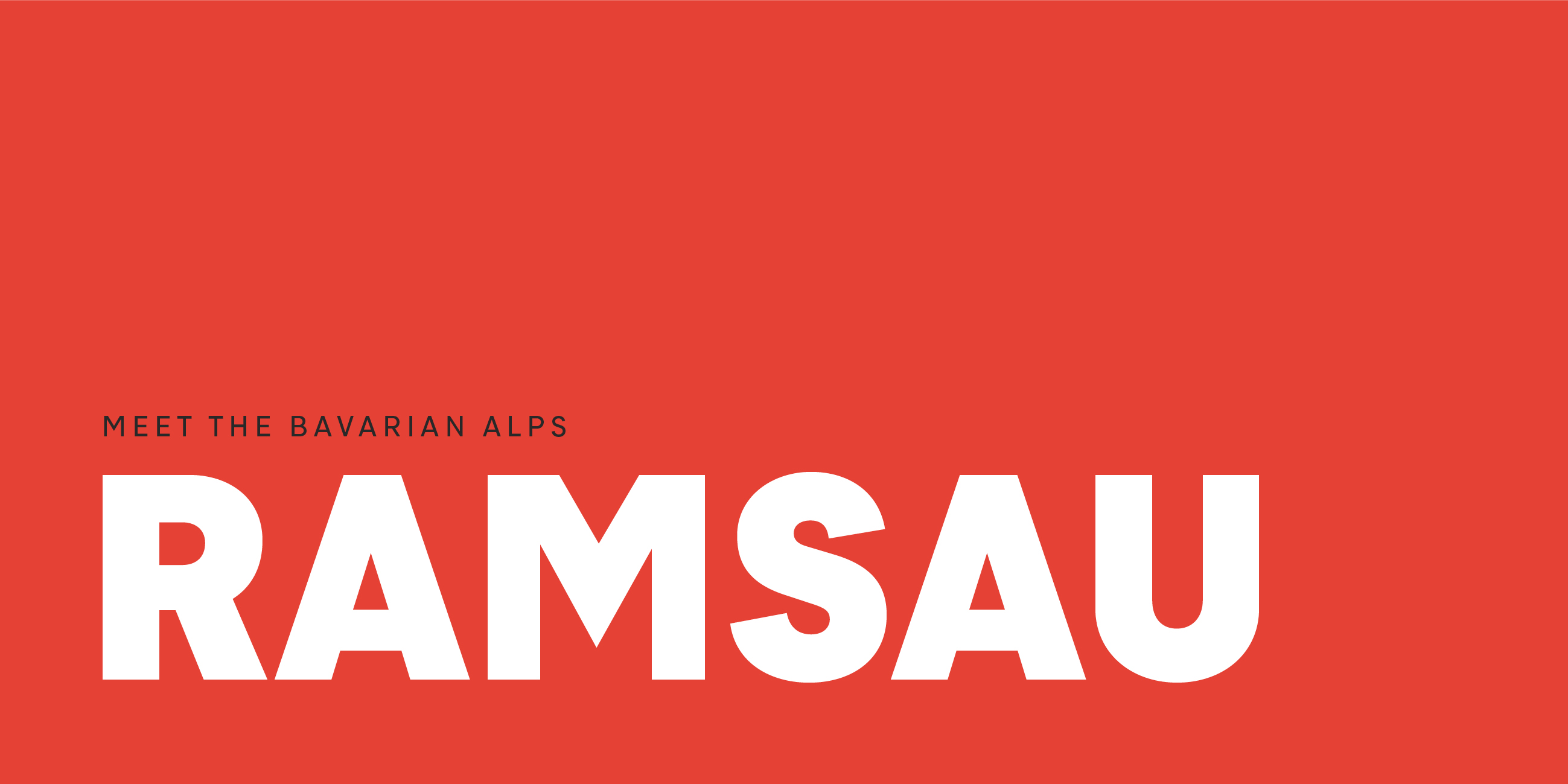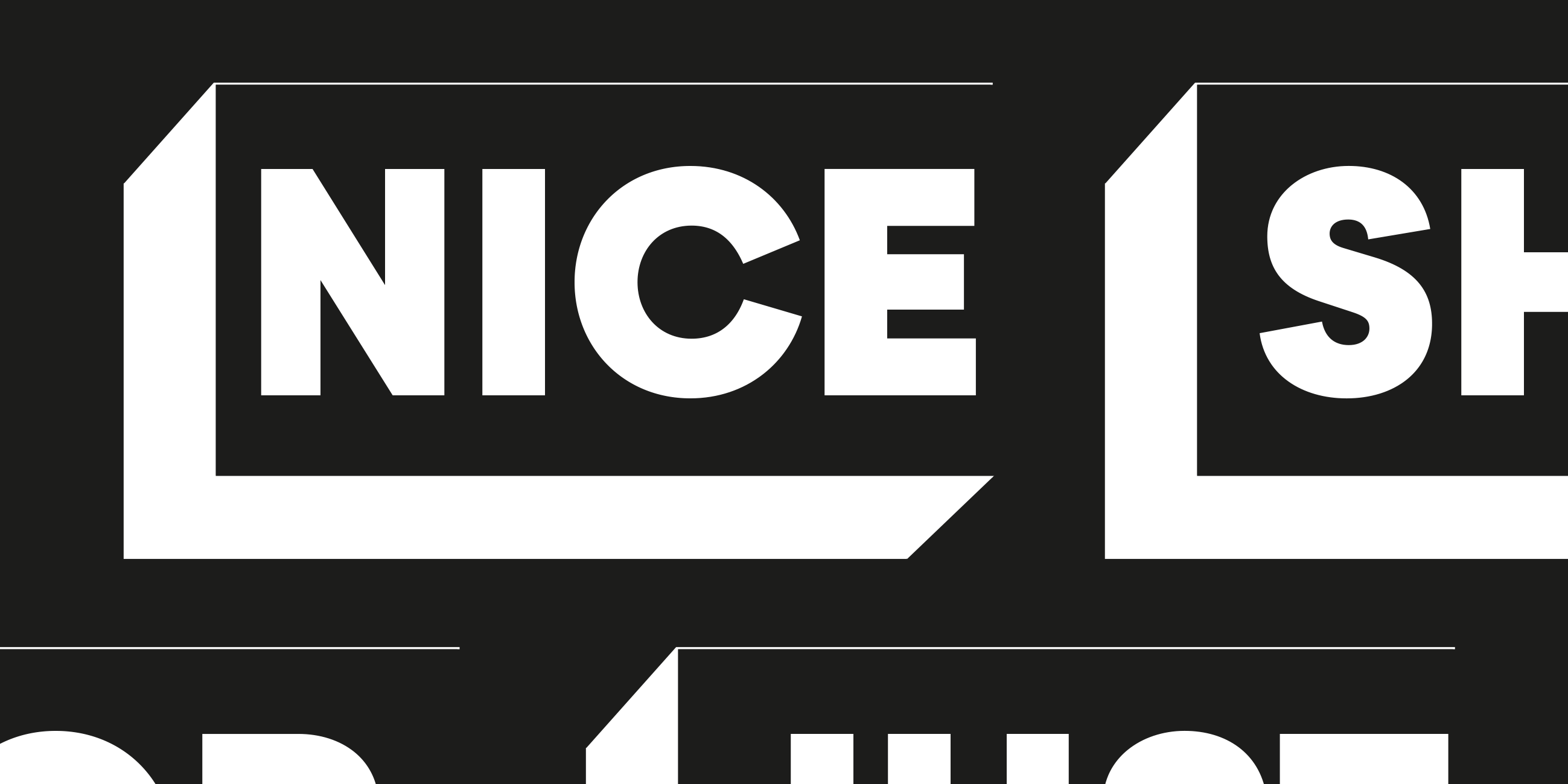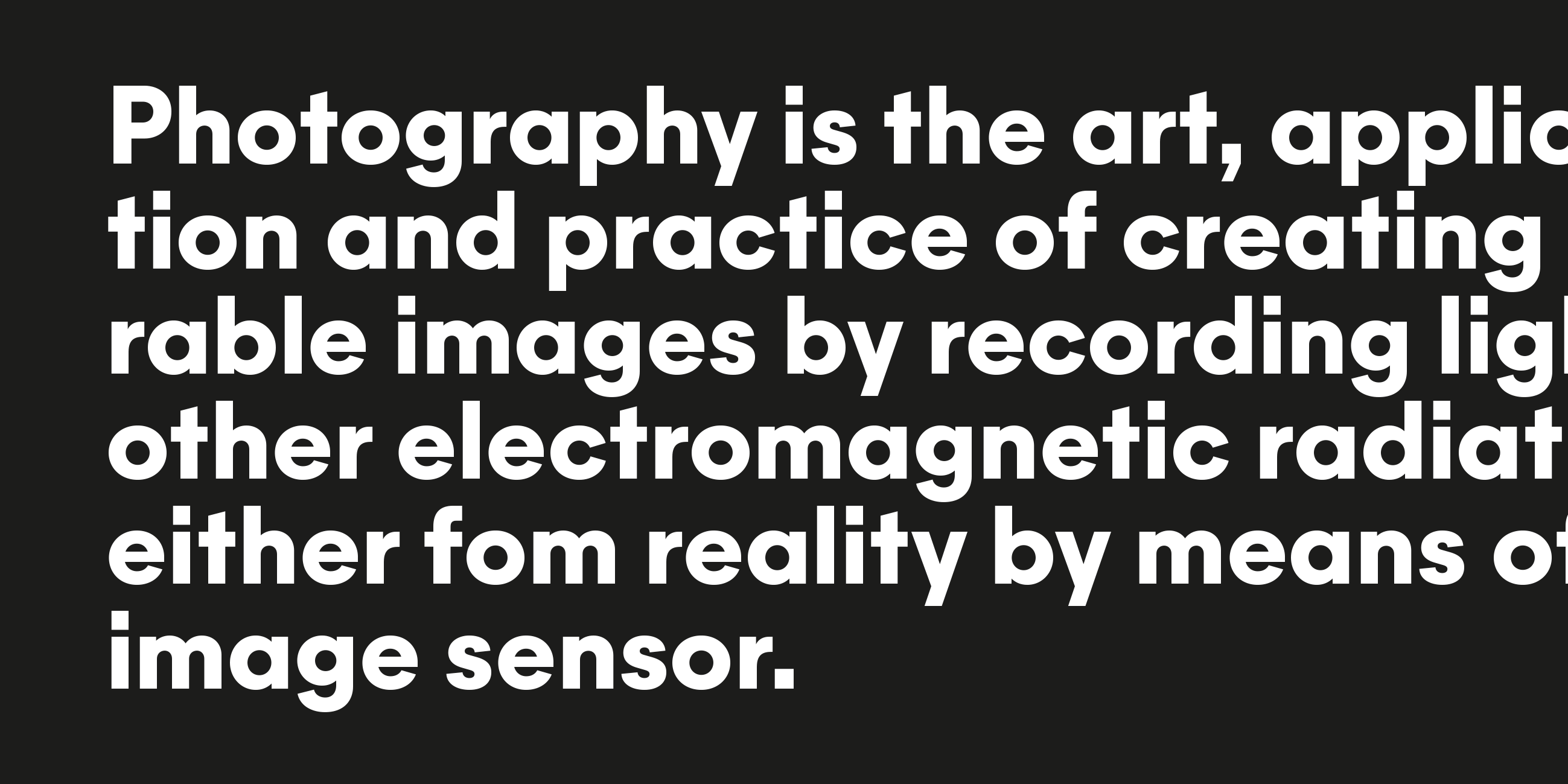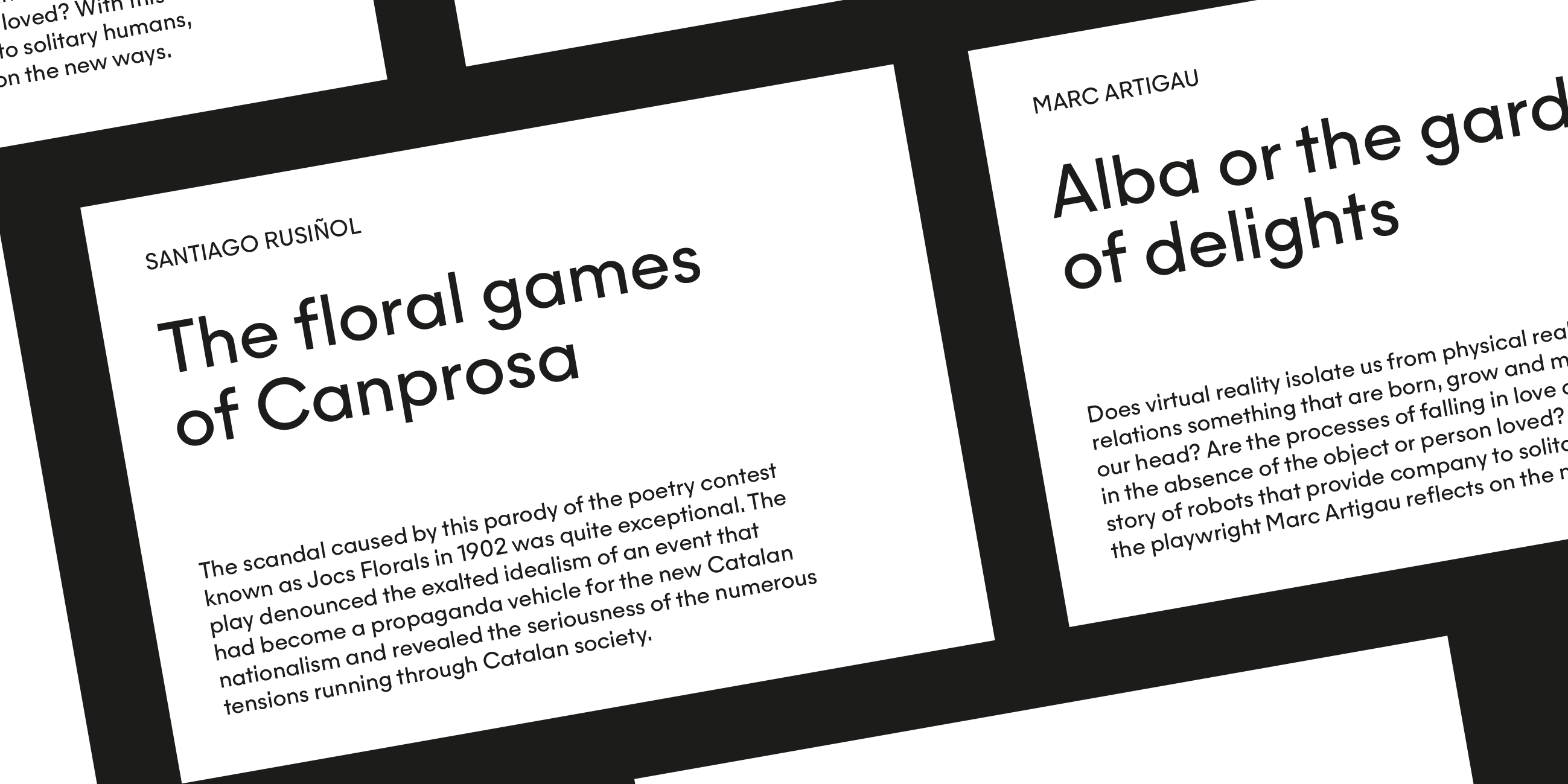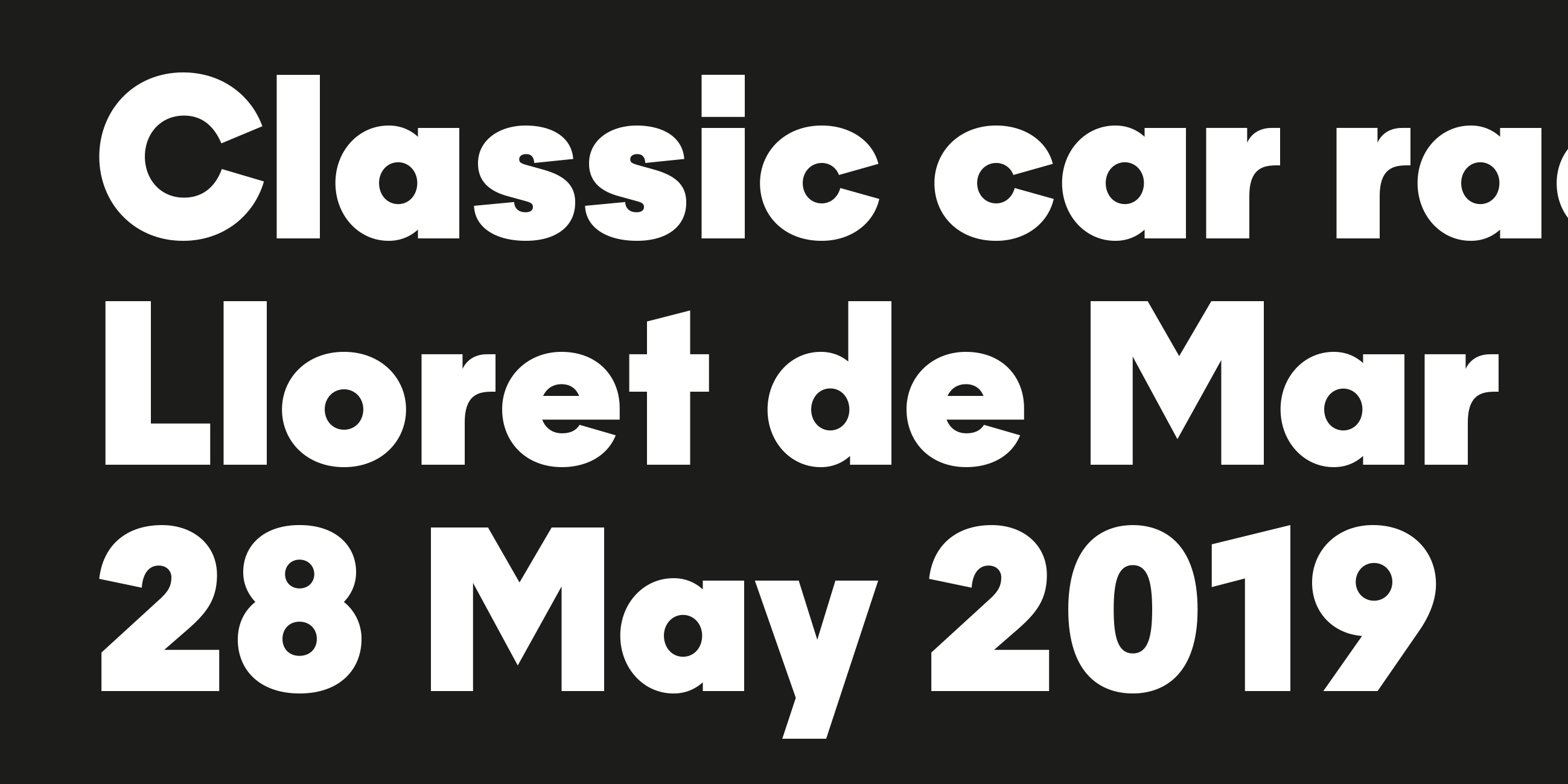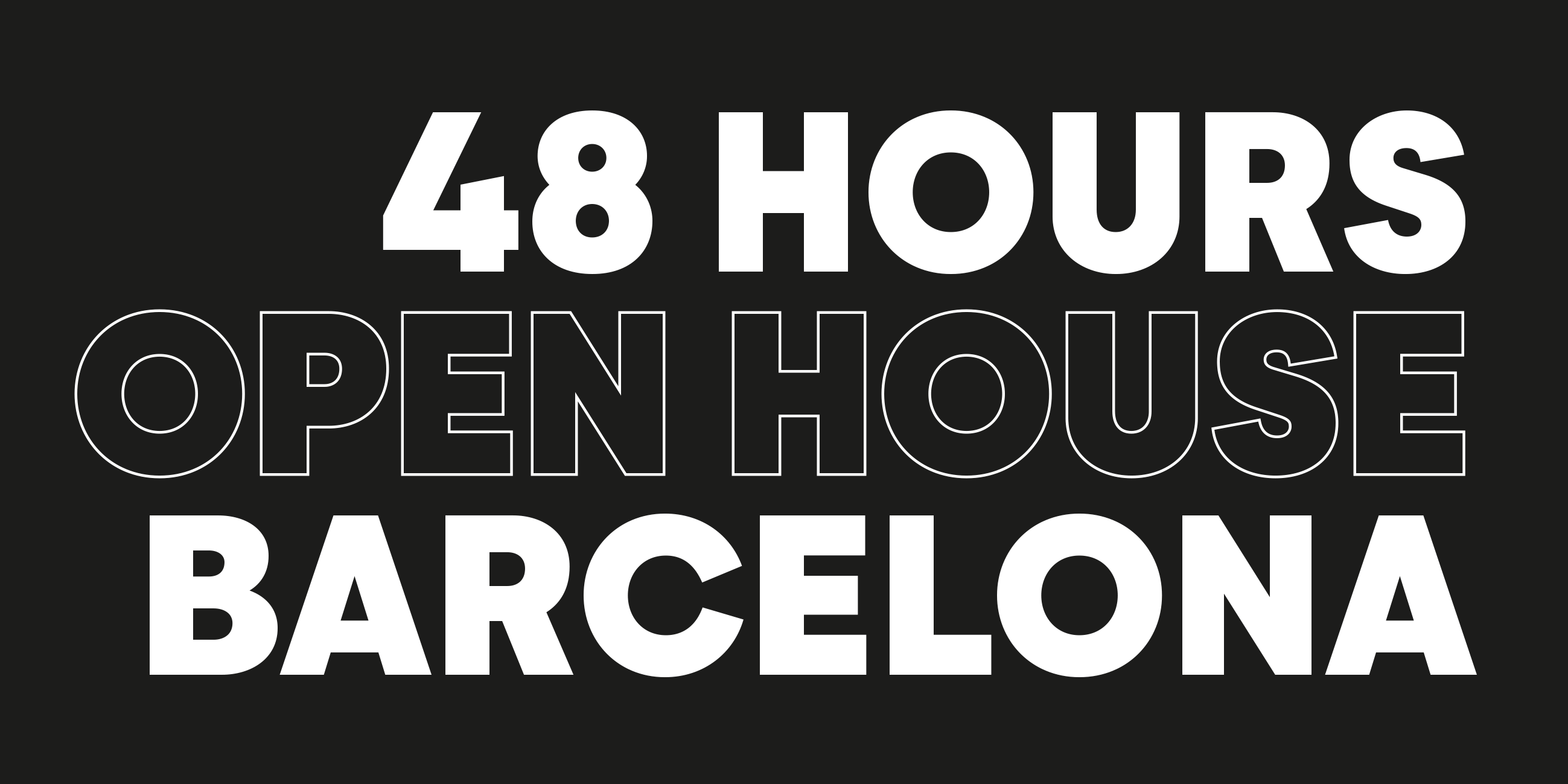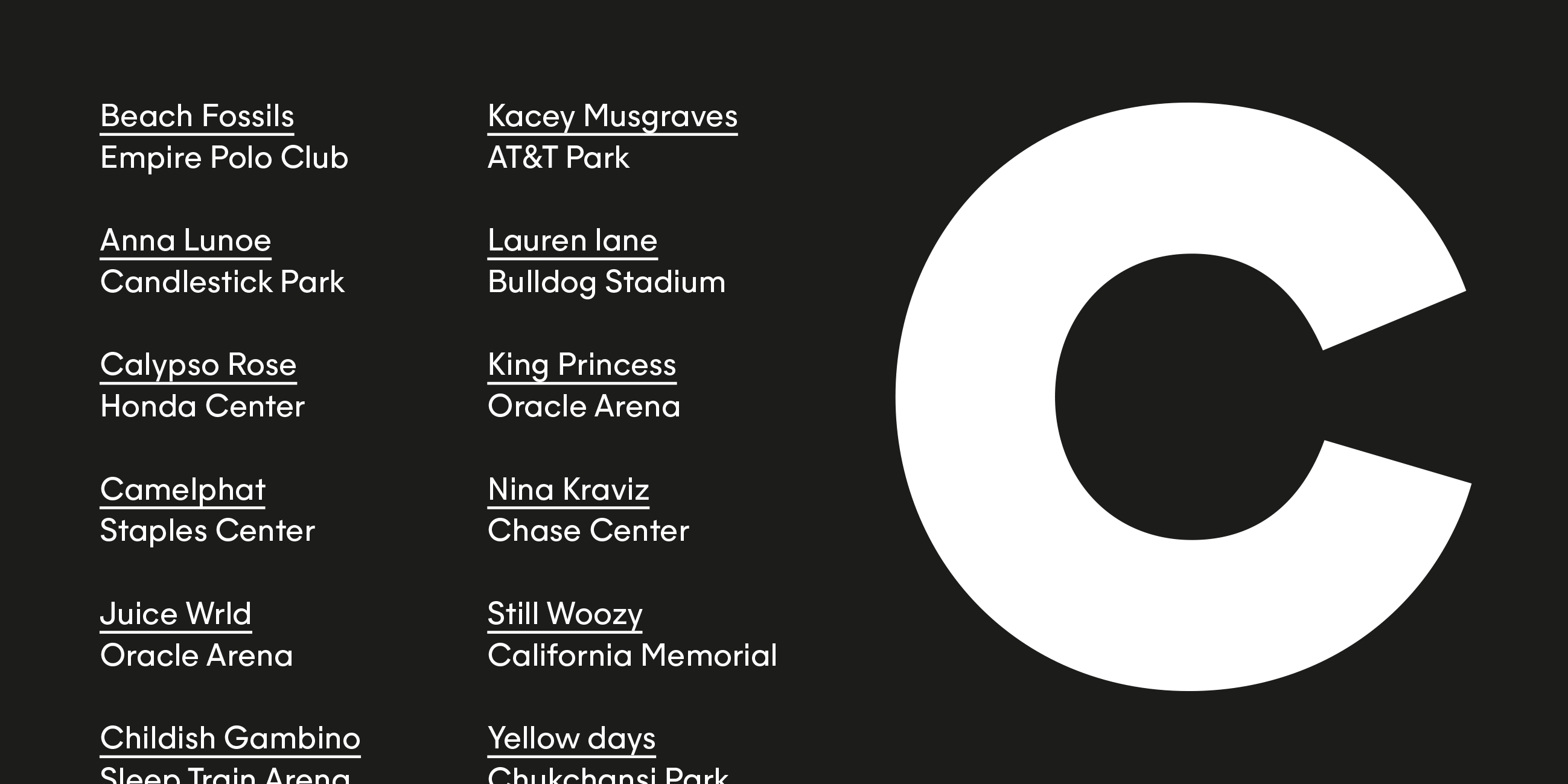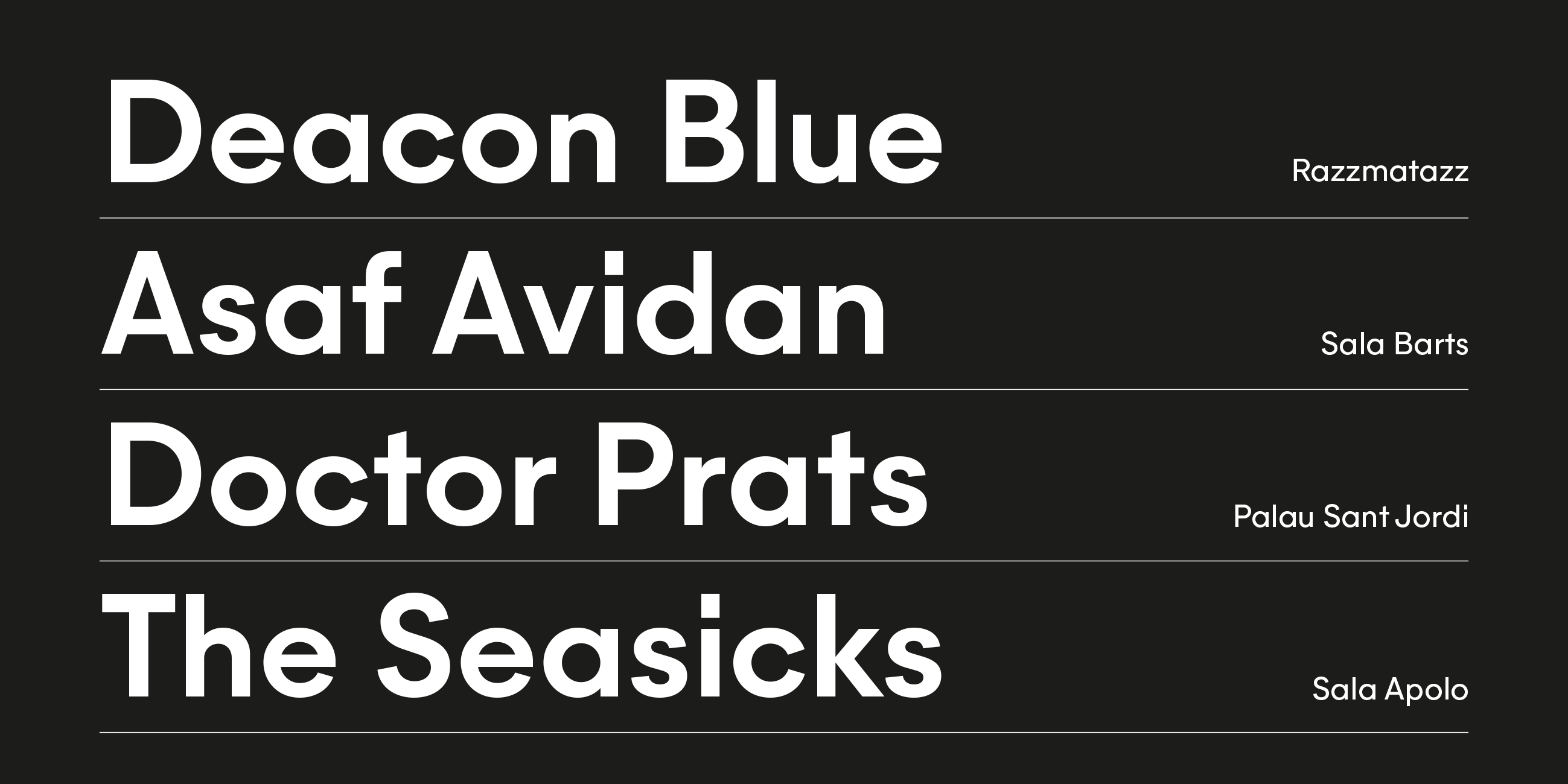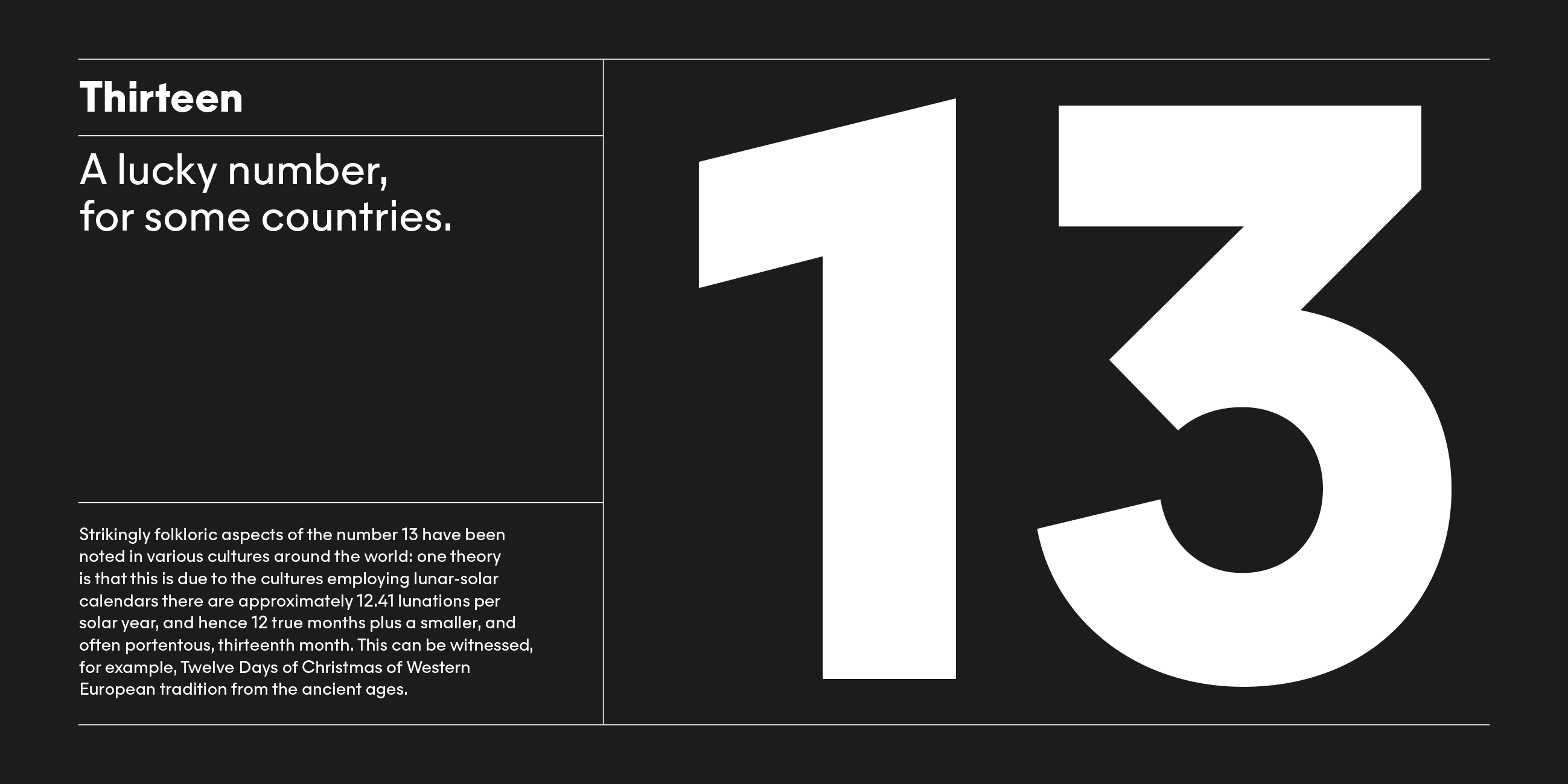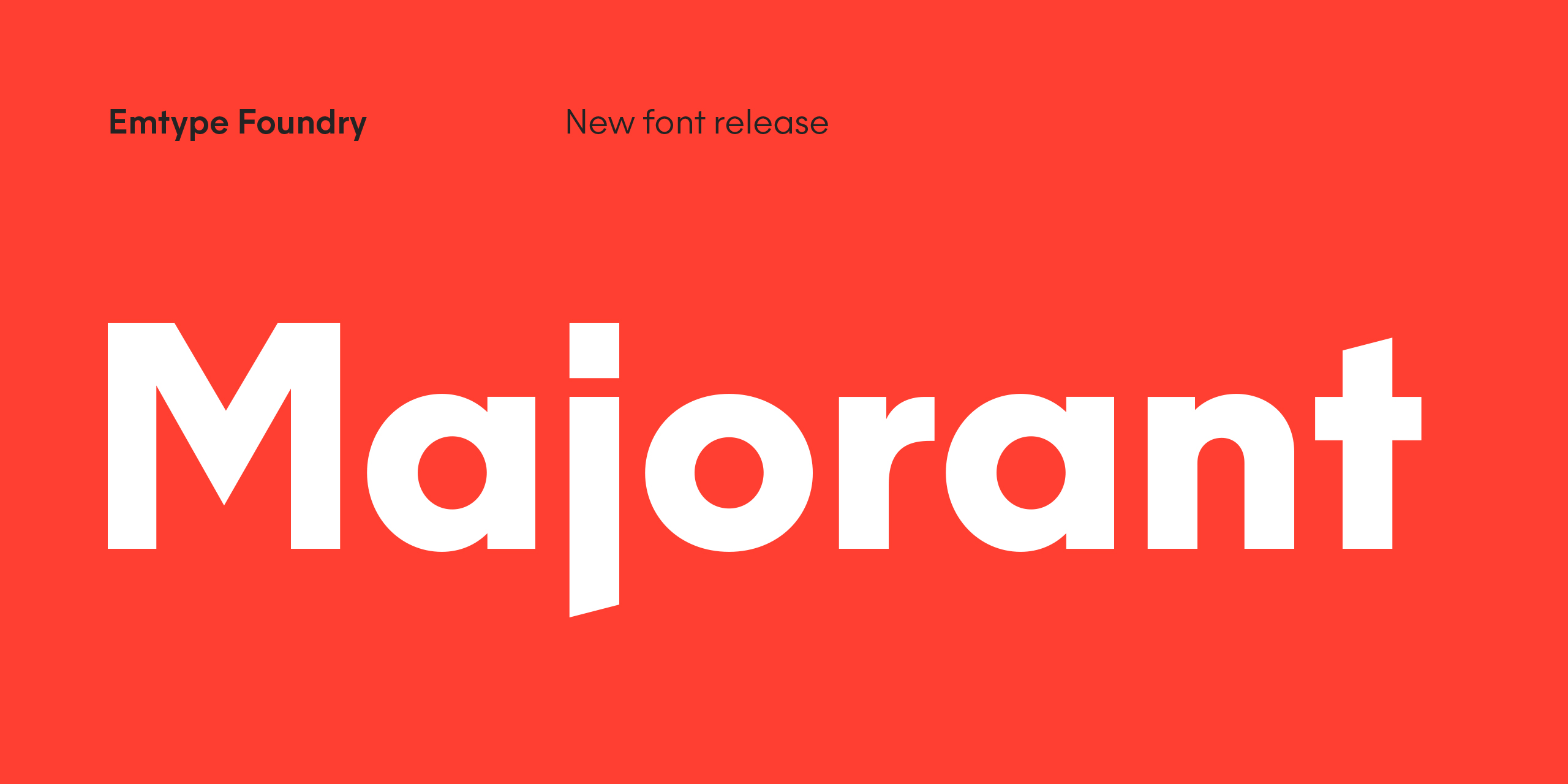
Majorant is a geometric sans serif interpreted from a contemporary point of view. Its wide range of weights makes it a multipurpose family. The extreme weights work as a display typeface, from the mathematical rigour of the UltraThin to the expressive refinement of the Black. Thanks to the several alternates included, the font offers multiple personalities. From sharp and audacious in the default version, to the soft and classic in the stylistic sets. A Variable Font is included either with the full family or as separate style.